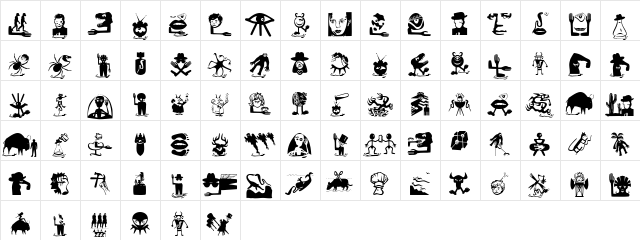
TangoSurrealism Regular
Design Context for TangoSurrealism Typeface
TangoSurrealism is a composed and adaptable typeface that performs quietly and consistently across a wide range of design contexts.